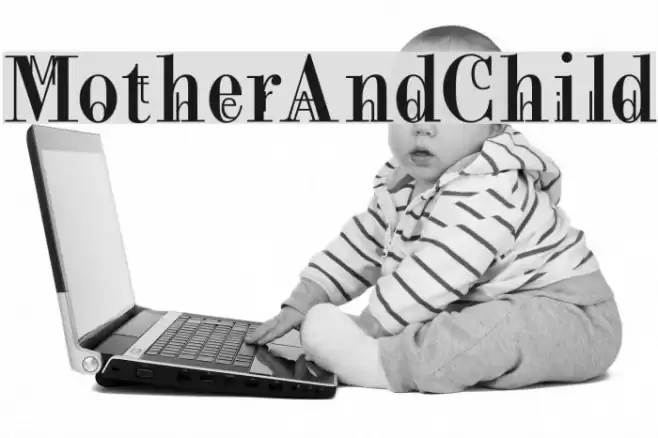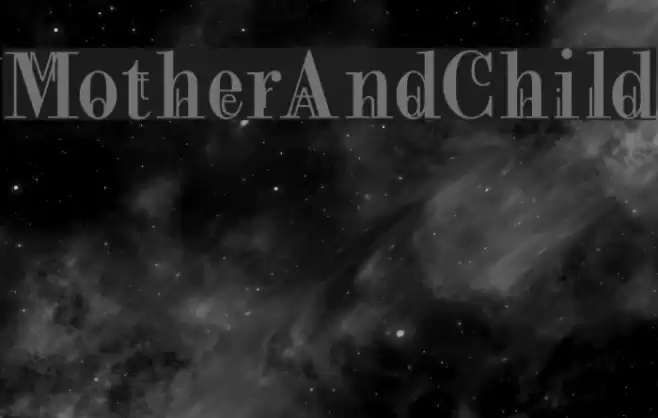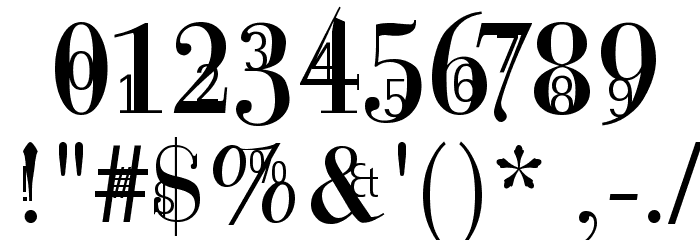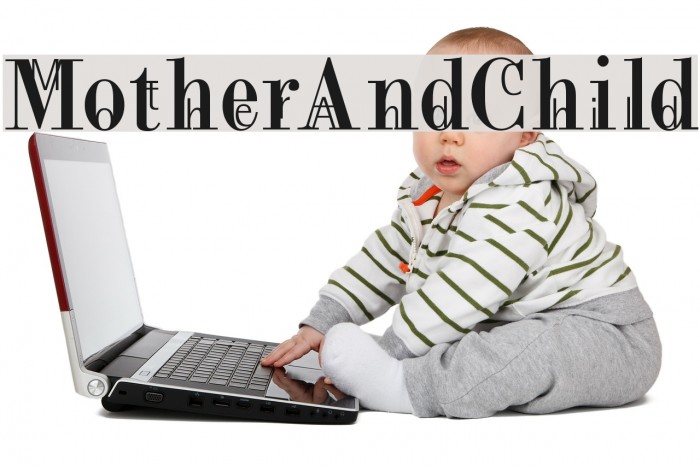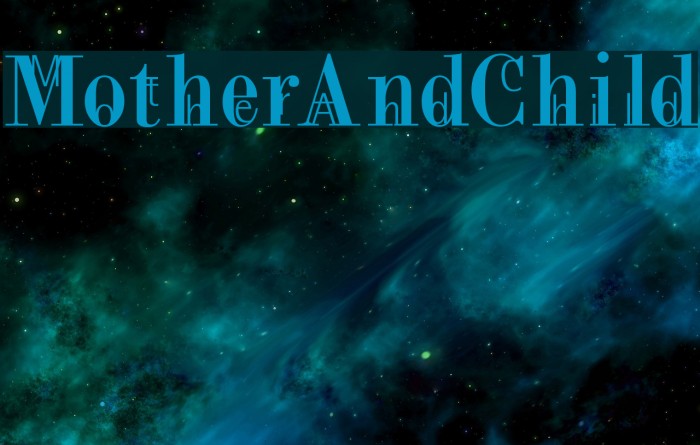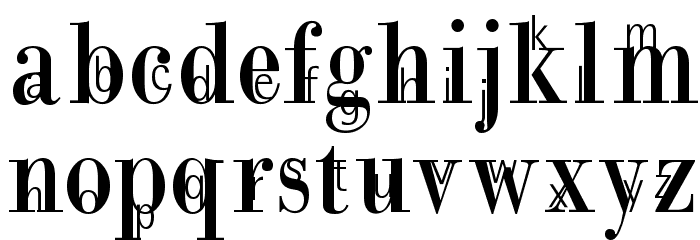
MotherAndChild Font
MotherAndChild Description
This font features a unique blend of classic serif elements with a modern twist. The uppercase letters are bold and commanding, with distinct serifs that add a touch of elegance. The lowercase letters maintain a consistent style, offering a harmonious balance between readability and aesthetic appeal. Numbers are designed with a similar flair, ensuring they stand out while remaining cohesive with the overall design. Special characters are crafted with attention to detail, making them suitable for a variety of uses. The font's high contrast in stroke thickness enhances its visual impact, making it ideal for headlines and titles.
A bold serif font with high contrast and elegant serifs, perfect for impactful headlines from Uncategorized fonts.
- Proposed Projects: Ideal for editorial design, book covers, branding projects, and luxury product packaging.
- Overall Style: Classic